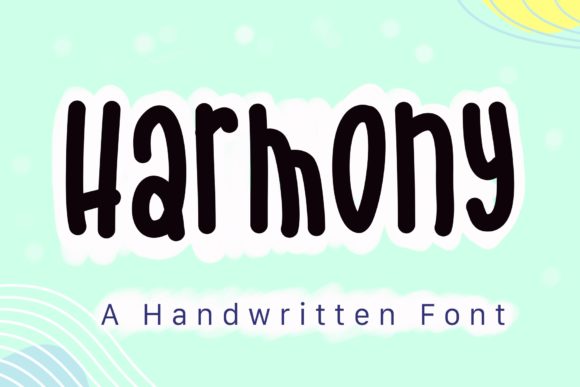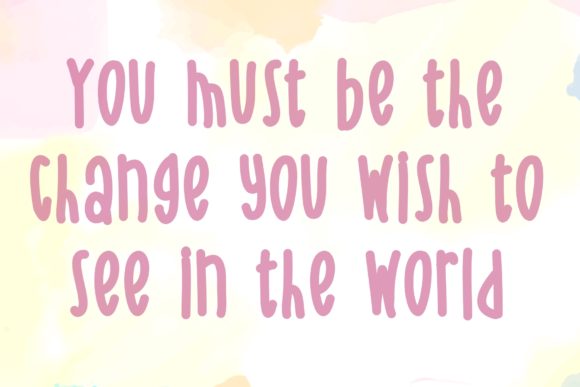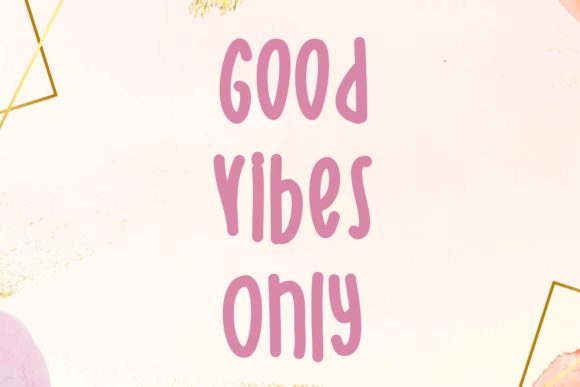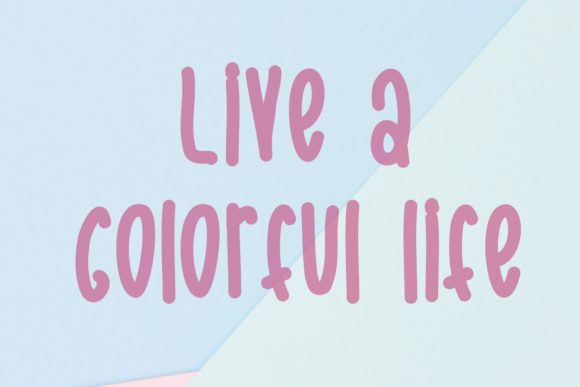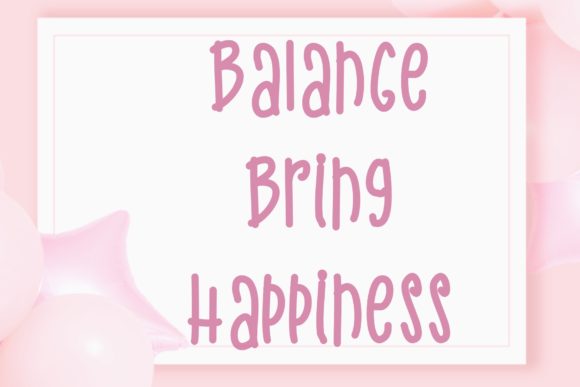
Harmony Font
About Harmony Font
Harmony is a cute and quirky handwritten font. Bold and unique, this font will make each of your creations come alive!